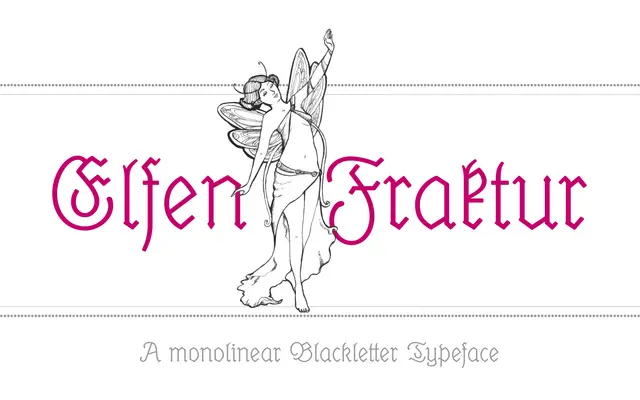
Elfen-Fraktur
FDI Type Foundry · M. Beck, Ralf Herrmann · 2015
A 2015 revival of M. Beck's 1919 monolinear fraktur, issued in two versions to accommodate both traditional German orthography and modern multilingual use.
Originally designed by M. Beck and published in 1919, this fraktur revival was extended by Ralf Herrmann into two discrete variants: Elfen-Fraktur A retains the original blackletter skeletons for traditional German typesetting, while Elfen-Fraktur B offers modernised letterforms suited to a wider range of languages and contemporary legibility expectations. Both versions include a full Latin 1 character set, and the package includes 22 decorative border elements under the name Elfen-Schmuck. Intended primarily for display work such as logos and headlines, and requires an OpenType-savvy application to access all glyphs and features.
A monolinear blackletter revival of an early twentieth-century fraktur design; the two variants preserve and modernise the traditional German fraktur skeleton respectively.